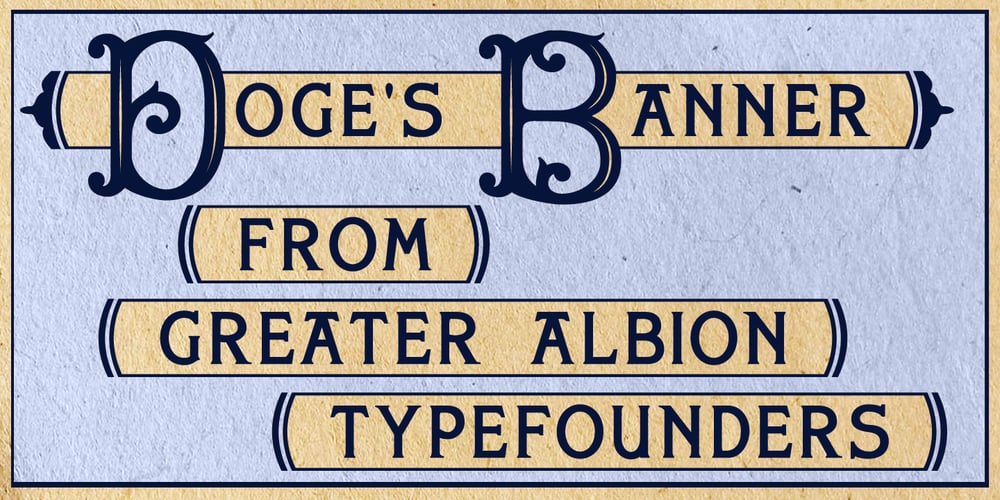
Doge’s Banner
Doge’s Banner font
Doge’s Banner Font Family was designed by Paul James Lloyd and published by Greater Albion Typefounders. Doge’s Banner contains 1 styles and family package options. Doge’s Banner is one of a set of four typefaces, the others being Doge’s Delight, Doge’s Darker and Doge’s Venezia. Together they make up a splendid family of Victorian inspired Tuscan faces, allowing for an integrated design approach.